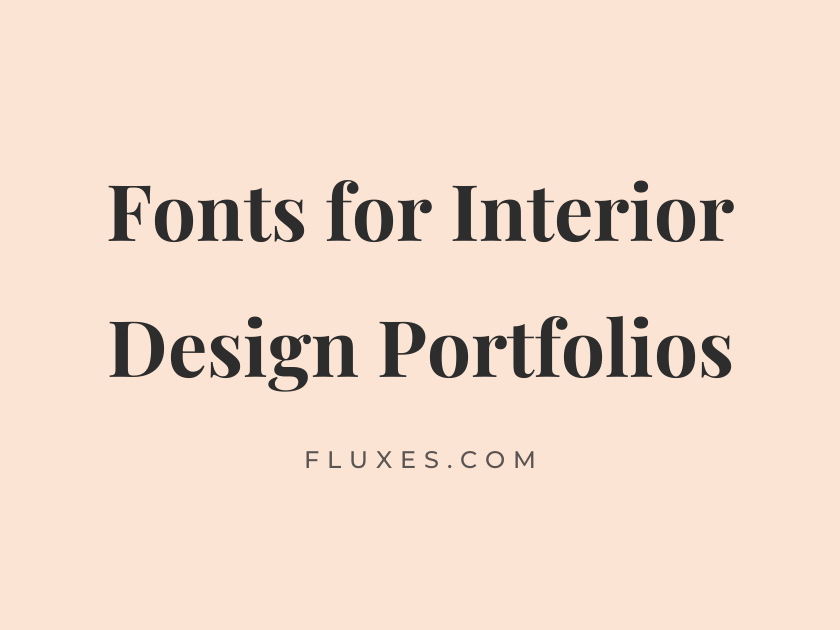
68 Best Fonts for Interior Design Portfolios
Interior design work lives or dies on how well it is presented, and typography is doing more of that job than most designers admit. A portfolio full of moody room renders and carefully sourced textiles deserves type that reads as calm, considered, and materially aware rather than loud or generic. The right typeface can echo the proportions of a well-laid floor plan or the warmth of a linen swatch; the wrong one can flatten months of careful spatial work into something that looks like a template.
This kind of project usually calls for a small, disciplined type system: one refined serif or display face for project titles and section openers, a clean sans-serif for captions, specs, and navigation, and occasionally a monospace for material lists or dimensions. Whether you are building a portfolio site, a PDF lookbook, or printed leave-behinds for clients, the free fonts on Google Fonts below cover nearly every register an interior design practice might need.
1. Playfair Display
Light-filled rooms, considered materials, quiet luxury
High contrast between thick and thin strokes gives Playfair Display an editorial, almost architectural presence on the page, which is exactly why it turns up so often as a headline face for design studios and boutique hotels. Pair it with a plain sans-serif for body copy so its drama has room to breathe.
2. Inter
Floor plans, finishes, and furniture schedules
Inter was built for screens, and it shows in how evenly it reads at small caption sizes next to a full-bleed room photograph. It has no personality to compete with your imagery, which for a portfolio is precisely the point.
3. Cormorant Garamond
Curated interiors for discerning clients
There is a jewelry-like delicacy to Cormorant Garamond that suits luxury residential and hospitality work especially well. It gets thin and a little fragile at small sizes, so keep it for pull quotes, project titles, and anything set generously large.
4. Work Sans
Natural light, warm oak, honest materials
A dependable, humanist workhorse, Work Sans sits comfortably under a decorative headline without fighting for attention. It is a safe, professional choice for portfolio navigation, captions, and long-form project descriptions.
5. EB Garamond
Timeless proportions inspired by classic architecture
Drawn from Claude Garamond’s sixteenth-century letterforms, this face carries a scholarly, old-world calm that suits designers working in period renovation or classical interiors. It reads best in print or in generously sized web text rather than tight UI labels.
6. Montserrat
Modern living spaces, minimal and uncluttered
Montserrat’s geometric, slightly rounded letterforms give it a friendly confidence that works well for contemporary and mid-century-leaning studios. It is popular enough that it can feel a little expected, so consider it when you want reliability over novelty.
7. Fraunces
Soft curves, tactile fabrics, layered textures
Fraunces bends classic serif structure into something wetter and more expressive, with optical sizes that let it flex from a chunky display face to a softer text setting. It brings a handmade, almost ceramic warmth that pairs nicely with photography of textiles, plaster, or clay.
8. Jost
Geometric lines, balanced proportions, clean space
Modeled loosely on 1920s geometric sans faces, Jost has a Bauhaus-adjacent crispness that flatters portfolios built around clean, architectural photography. Its perfectly circular counters give headlines a confident, almost stamped quality.
9. Lora
Rooms designed to feel lived in, not staged
Lora has moderate contrast and gentle brush-influenced curves, which keep it from feeling as severe as many text serifs. It is an easy, readable choice for longer project narratives and client testimonials.
10. Outfit
Contemporary interiors, clean modern lines
Outfit is a tidy, low-drama geometric sans with rounded terminals that read as friendly rather than corporate. It works especially well as a UI font for portfolio sites where navigation needs to disappear into the background.
11. Bodoni Moda
Sculptural furniture, dramatic lighting, bold statements
The extreme thick-thin contrast of Bodoni Moda gives it real runway energy, and it can lend a portfolio a fashion-magazine polish. Use it sparingly and at large sizes; it loses its crisp hairlines and can look muddy in small captions.
12. Manrope
Open floor plans, natural textures, calm palettes
Manrope has a slightly wider, more open feel than many grotesque sans faces, which gives portfolio interfaces a bit of breathing room. It is versatile enough to handle both interface text and short display headlines.
13. Prata
Classic elegance for heritage renovation projects
Prata’s tall proportions and fine serifs recall old-world signage and formal invitation typography. It suits a studio whose work leans toward heritage restoration, classical detailing, or old-money interiors.
14. Karla
Simple, honest, well-proportioned interior spaces
Originally designed with grotesque and humanist influences, Karla is unfussy and legible without feeling cold. It is a solid, unobtrusive choice for a portfolio’s body text and metadata.
15. Marcellus
Refined finishes and considered spatial detail
Marcellus carries a restrained, almost neoclassical formality that suits high-end residential and hospitality portfolios. Its narrow, upright letterforms make tidy project titles without ever shouting.
16. Archivo
Structured layouts, grid-based design thinking
Archivo is a grotesque built for flexibility, with a wide weight range that lets a single family carry headlines, subheads, and captions. Its slightly squared shapes echo architectural drafting in a way that suits studios with a technical bent.
17. Cardo
Book-inspired serif for design writing and essays
Designed for scholarly typesetting, Cardo has generous proportions and old-style figures that make it comfortable for long stretches of reading. It fits a portfolio built around written case studies as much as imagery.
• Language support: Latin, Latin Extended, Gothic, Greek, Greek Extended, Hebrew, Old Italic, Runic
18. Barlow
Efficient, engineered, distinctly Californian sans
Barlow was inspired by California license plates and highway signage, giving it a slightly mechanical, engineered quality. That technical undertone suits portfolios that lean into the construction and detailing side of interior design.
19. Crimson Pro
Editorial storytelling for design case studies
Crimson Pro was built to resemble the classic book serifs used in fine printing, and it carries that same unhurried, literary tone. It is a strong choice anywhere a portfolio slows down to tell the story behind a project.
20. DM Sans
Clean captions for material and finish specifications
DM Sans is low-contrast and slightly geometric, staying legible even when set small for spec sheets or image captions. It never competes with photography, which makes it a dependable supporting player.
21. Domine
Grounded serif for confident project introductions
Domine was designed specifically to hold up well on screens at text sizes, with sturdy strokes that keep it from thinning out. It gives a portfolio introduction some weight and authority without tipping into decorative territory.
22. Sora
Sharp geometric headlines for modern studios
Sora’s rounded corners and tall x-height give it a confident, slightly technical presence on screen. It reads well as a headline face for portfolios with a more product-design or architecture-firm sensibility.
23. Spectral
Considered typography for thoughtful design narratives
Spectral was commissioned for long-form reading on screens, and its calm, even rhythm makes it well suited to portfolio pages heavy with written explanation. It has a restrained personality that lets photography do most of the talking.
24. Epilogue
Minimalist grotesque for gallery-style portfolios
Epilogue has a cool, slightly severe geometry that suits portfolios styled like art gallery catalogs. It is equally comfortable as body copy or, in a heavier weight, as a compact headline face.
25. Source Serif 4
Balanced serif for research-driven design practices
Adobe originally built this as the serif companion to Source Sans, and it keeps that same quiet, workmanlike reliability. It is a good pick for practices that present detailed material research alongside finished photography.
26. Public Sans
Accessible, no-nonsense text for portfolio interfaces
Developed for U.S. government digital services, Public Sans prioritizes clarity above all else. It will never be the most memorable font on this list, but it is one of the most trustworthy for interface and body text.
27. Bitter
Warm slab serif for cozy residential interiors
Bitter’s slab serifs give it a sturdy, grounded feel that pairs nicely with photography of wood, stone, and other heavy materials. It holds up well at both display and text sizes, which makes it useful across a whole portfolio.
28. Urbanist
Contemporary minimalism with soft geometric edges
Urbanist is a low-contrast geometric sans with a light, airy feel that suits portfolios built around white space and negative space photography. It is best reserved for smaller text; at large display sizes it can look a little thin.
29. Piazzolla
Expressive serif with a hand-finished feel
Piazzolla
Piazzolla has subtle calligraphic touches that keep it from feeling mechanical, giving it warmth without tipping into decoration. It suits a portfolio that wants a serif with a bit more personality than the usual editorial choices.
30. Figtree
Friendly, rounded sans for approachable design brands
Figtree’s soft curves and even spacing give it a welcoming, conversational tone that suits residential-focused studios more than corporate ones. It reads comfortably at small sizes, which makes it a safe choice for navigation and captions.
31. Frank Ruhl Libre
Distinctive serif with old-world character and weight
Originally cut for Hebrew typesetting, Frank Ruhl Libre carries an unusual, slightly irregular texture that stands apart from the more predictable serif choices on this list. It is best used sparingly, for titles or pull quotes, where its character can register clearly.
• Styles: 7 weights (Light to Black)
32. Albert Sans
Clean grotesque for studio branding and web use
Albert Sans
Albert Sans is understated to the point of being nearly invisible in a good way, letting photography and layout carry the visual weight. It is a dependable choice when a portfolio needs one sans to do everything competently.
33. Vollkorn
Grounded serif for German-influenced minimal interiors
Vollkorn means “wholegrain” in German, and there is something fittingly sturdy and unpretentious about its letterforms. It suits portfolios with a restrained, Scandinavian or German design sensibility.
34. Plus Jakarta Sans
Modern geometric sans for global design studios
Plus Jakarta Sans has a slightly narrower, more tailored feel than many geometric sans fonts, giving it a subtle sense of polish. It works well across headlines and body text alike, which simplifies building a small type system.
35. Alegreya
Literary serif for design manifestos and studio statements
Originally designed for long passages of literary text, Alegreya has a calligraphic rhythm and slight irregularity that keeps pages from feeling stiff. It is a strong choice for an “about” page or studio philosophy statement.
36. Space Grotesk
Technical, architectural headlines with a modern edge
Space Grotesk’s monospace-influenced proportions give it a technical, blueprint-adjacent feel that suits studios working at the intersection of design and architecture. Its quirks are subtle enough not to distract, which is rarer than it sounds in geometric sans fonts.
37. Libre Caslon Text
Refined classic serif for print-ready portfolios
Libre Caslon Text
This is a careful, contemporary reworking of Caslon’s eighteenth-century designs, tuned specifically for screen and small-size legibility. It brings genuine editorial pedigree to a portfolio without the fragility that older Caslon revivals can show on screen.
38. Familjen Grotesk
Restrained Scandinavian sans for minimal portfolios
Familjen Grotesk
There is a dry, understated wit to Familjen Grotesk’s letterforms that suits Nordic-influenced interior design studios particularly well. It stays legible and calm even in dense layouts of specifications and credits.
39. Noto Serif Display
Confident serif headlines with global type support
Noto Serif Display
Built as part of Google’s Noto system, this face was designed to work consistently across many scripts, which is genuinely useful for studios presenting international projects. Its display proportions give it enough presence for section openers and cover pages.
40. Onest
Neutral, contemporary sans for portfolio interfaces
Onest
Onest keeps its geometry simple and its personality low, which is exactly what a portfolio’s interface layer usually needs. It disappears politely behind photography and titles, doing its job without asking for credit.
41. Petrona
Elegant serif with quiet Argentine design roots
Petrona
Petrona has a soft, slightly rounded warmth in its serifs that keeps it from feeling as formal as many display serifs. It works well for shorter passages of text where a touch of personality is welcome.
42. Josefin Sans
Art Deco elegance for boutique interior brands
Inspired by 1920s geometric type, Josefin Sans has tall, narrow proportions and rounded dots that suit a studio with a vintage or Art Deco aesthetic. Keep it for titles and short labels rather than body text, where its narrowness can slow reading.
43. Newsreader
Editorial serif built for reading design journalism
Newsreader was modeled on the transitional serifs used in classic newspaper and magazine typesetting, and it carries that same unhurried authority. It is well suited to portfolios that include press features or written critique alongside project photography.
44. Tenor Sans
Understated sans for gallery-quality presentation
Tenor Sans
Tenor Sans has a spare, almost architectural evenness to its letterforms, with no unnecessary flourish anywhere in the design. It suits minimalist portfolios that want typography to feel like part of the exhibition rather than a label on it.
45. Cinzel
Monumental serif inspired by classical Roman inscriptions
Drawing directly from carved Roman capitals, Cinzel brings a formal, monumental gravity that suits classical, historic, or grand hospitality interiors. It is a capitals-only, all-caps kind of face, best reserved for short titles.
46. Julius Sans One
Delicate, minimal sans for luxury interior branding
Julius Sans One
Julius Sans One is extremely light and airy, with generous spacing between letters that reads as understated luxury. It needs a plain, dark background or ample white space to keep its thin strokes legible.
47. Italiana
High-fashion elegance for luxury design studios
Italiana has the same tall, thin-stroked glamour you would expect from a fashion house’s wordmark, which makes it a natural fit for luxury interior design and staging portfolios. It is a display face only; keep it to short titles set generously large.
48. Poiret One
Art Deco flourish for glamorous interior presentations
Named after the Parisian couturier Paul Poiret, this face has the same theatrical geometric flair as the era it references. It is best used in tiny doses, on a cover page or logotype, rather than anywhere text-heavy.
49. Yeseva One
Bold decorative serif for statement project titles
Yeseva One combines classic serif structure with a slightly playful, rounded finish, giving it enough presence to anchor a portfolio’s cover page. It works best in isolation rather than alongside another decorative font.
50. Marcellus SC
Formal small capitals for refined project headers
Marcellus SC
This small-caps companion to Marcellus adds a subtle ceremonial quality to section headers and studio names. It is a nice detail for a portfolio that wants its typography to feel considered down to the smallest label.
51. Abril Fatface
Dramatic display serif for bold cover pages
Abril Fatface has enormous stroke contrast that makes it read almost like a woodcut poster letter. It is a strong, memorable choice for a portfolio cover but far too heavy for anything beyond a few words.
52. Bebas Neue
Bold condensed caps for confident section dividers
Bebas Neue’s tall, narrow, all-caps letterforms have become a default for confident, no-frills headlines across countless portfolios and branding projects. Its ubiquity means it will feel familiar rather than distinctive, so use it where clarity matters more than novelty.
53. Oswald
Condensed sans for tight, structured project labels
Redrawn from classic gothic sans forms, Oswald’s condensed width makes it useful for fitting long project names or addresses into narrow header spaces. It has a slightly industrial edge that suits loft, warehouse, or adaptive-reuse projects.
54. Anton
Heavyweight display type for maximum impact
Anton is about as bold and compact as a sans-serif gets, making it a good choice for a single striking word on a portfolio’s opening screen. It has essentially one job, big impact statements, and does it well.
55. Big Shoulders
Chicago-inspired condensed type for urban design work
Big Shoulders
Named for Chicago’s industrial skyline, Big Shoulders carries a compressed, structural rhythm that suits portfolios centered on urban or commercial interiors. Its wide range of styles, from inline to display, gives it more flexibility than most condensed fonts.
56. Staatliches
Poster-style caps for bold portfolio openers
Staatliches has a hand-cut, screen-printed quality that gives it more warmth than most condensed display fonts. It works nicely for a portfolio’s opening statement or exhibition-style project titles.
57. Fjalla One
Compact grotesque for tight navigation and labels
Fjalla One packs a lot of character into a narrow footprint, making it useful for portfolio navigation bars and image captions where space is tight. It stays legible even at small sizes, which is not true of every condensed face.
58. Archivo Narrow
Space-efficient labels for detailed floor plan callouts
Archivo Narrow
As the condensed relative of Archivo, this face keeps the same grotesque clarity while taking up noticeably less horizontal space. It is a practical choice for annotating plans, sections, and material callouts directly on images.
59. Six Caps
Ultra-condensed caps for oversized cover typography
Six Caps
Six Caps is about as narrow as a legible display font gets, letting you set an entire studio name across a full-bleed image without overwhelming it. Reserve it strictly for large, short headlines; it is unreadable at body text sizes.
60. Teko
Sharp, angular caps for technical project titles
Teko’s slightly angular, engineered letterforms give it a technical, almost architectural drafting quality. It suits portfolios that want their headlines to feel precise rather than decorative.
61. Zilla Slab
Warm slab serif for craft-focused design studios
Commissioned for Mozilla’s own branding, Zilla Slab has sturdy, friendly slab serifs that give it a handmade, workshop kind of warmth. It suits studios that emphasize craftsmanship, joinery, or material honesty in their projects.
62. Rufina
Sculptural serif for statement furniture and lighting
Rufina
Rufina’s serifs are cut with sharp, angular terminals that give it a sculptural, almost architectural silhouette. It makes an unusual but effective choice for a portfolio built around bold, statement-piece furniture design.
63. Libre Baskerville
Traditional serif tuned for comfortable on-screen reading
This is a careful adaptation of the classic Baskerville design, widened and adjusted specifically to read well on screens. It is a dependable, slightly formal choice for portfolio body text where a serif feels more appropriate than a sans.
64. Space Mono
Monospaced labels for material lists and dimensions
Space Mono’s fixed-width letters and slightly quirky curves make it a distinctive choice for material specifications, room dimensions, or price lists. Used sparingly against a clean sans, it adds a technical, almost architectural-drawing texture to a portfolio.
65. IBM Plex Mono
Precise monospace for spec sheets and callouts
Developed as part of IBM’s expansive Plex type system, this monospace has a neutral, corporate precision that suits detailed material and finish schedules. It pairs naturally with its sans and serif siblings in the same family if you want a fully coordinated system.
66. JetBrains Mono
Crisp monospace for technical drawing annotations
Originally built for reading code, JetBrains Mono has unusually generous spacing and clear character shapes that make it easy to scan in short bursts. It works well for annotating construction details or material codes directly on drawings.
67. Roboto Mono
Neutral monospace for straightforward project data
Roboto Mono keeps the same even, businesslike tone as its sans-serif namesake, just fixed to a grid. It is a safe, unobtrusive choice anywhere a portfolio needs to present numbers or codes cleanly.
68. Parisienne
Delicate script for a personal signature touch
Parisienne’s loose, flowing script brings a handwritten warmth that suits a signature, a personal note, or a small closing line at the end of a case study. It should stay small and occasional; a script this ornate quickly overwhelms a page if overused.
How to pair and use these fonts
Keep the system small. One serif or display face for titles, one sans for everything functional, and an optional monospace for technical details will cover almost any interior design portfolio.
Let photography lead. Interior design portfolios live and die on imagery, so choose type that supports the room rather than competing with it.
Watch contrast and size. Delicate serifs and thin geometric sans fonts can turn muddy or disappear entirely at small caption sizes, so test real content, not just headlines.
Match tone to the work. A heritage renovation studio and a minimalist new-build practice should not reach for the same typeface just because it is trending.
Finally, license and pair with intention. Every font here is free for personal and commercial use through Google Fonts, so there is little risk in testing a few combinations directly on your own portfolio before committing.
A well-chosen type system will not upstage a single room you have designed, but it will make every project look more considered the moment a visitor lands on the page. Start with one serif, one sans, and restraint, and let the interiors themselves stay the star of the portfolio.